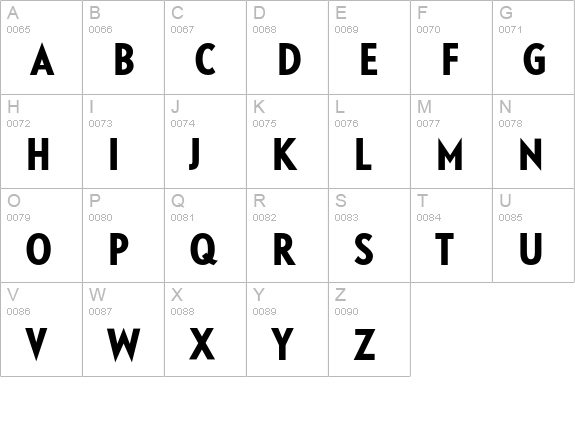
DTLNobelT-CondensedBold is a modern and sleek font that exudes strength and confidence. With its bold and condensed design, this font is perfect for making a bold statement in your designs. Whether you're creating a striking headline or designing eye-catching posters, DTLNobelT-CondensedBold is sure to make an impact. Not only does this font command attention, but it is also versatile and easy to read, making it suitable for a variety of design projects. Its clean lines and sharp edges give it a contemporary feel that will elevate any design. What's even better is that DTLNobelT-CondensedBold is available for free download at FontsMarket.com. So go ahead and add this powerful font to your collection today and take your designs to the next level!